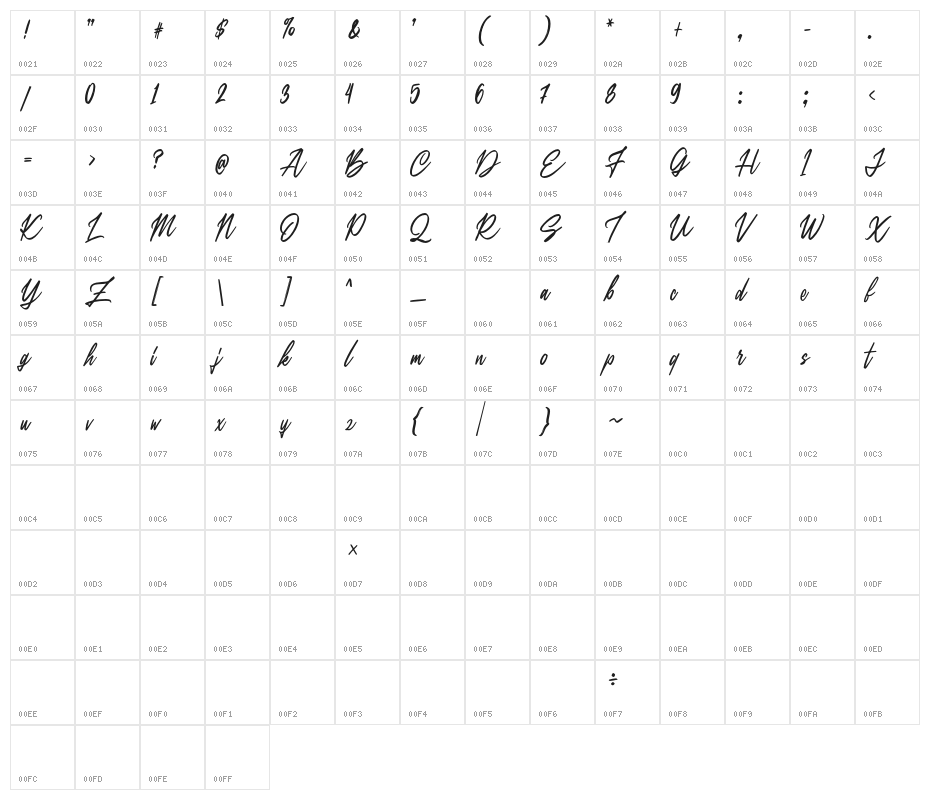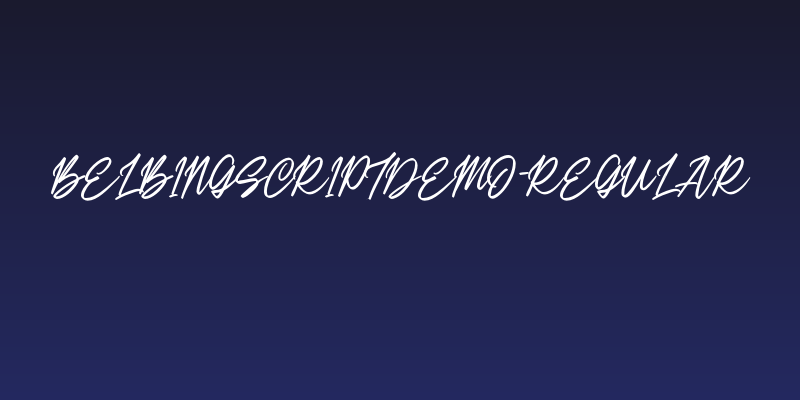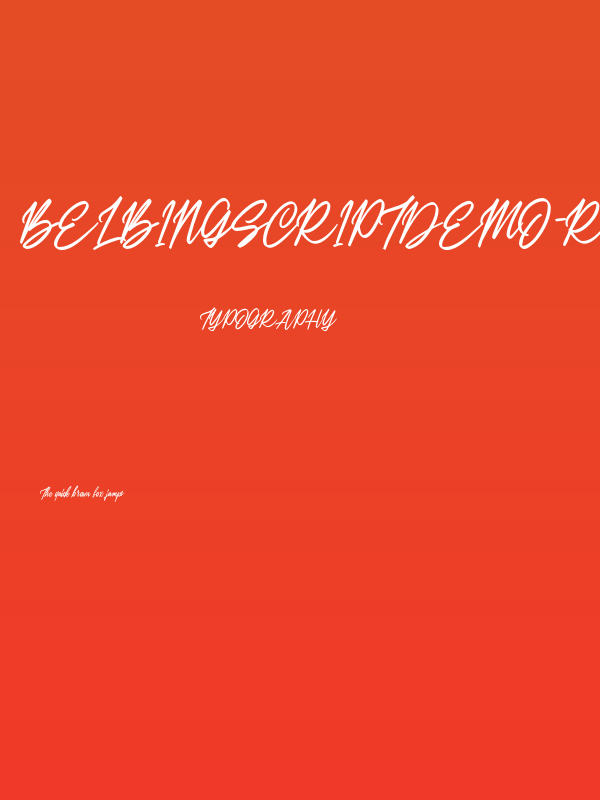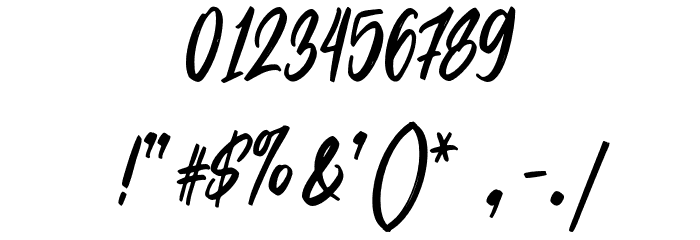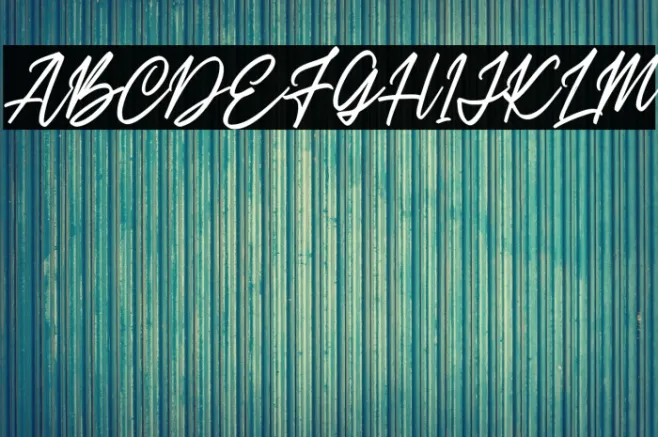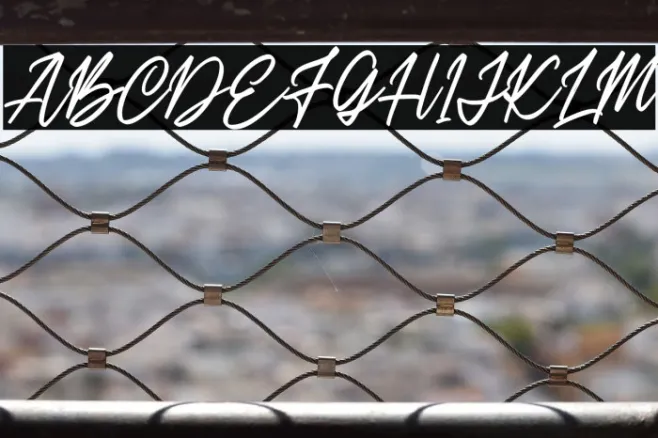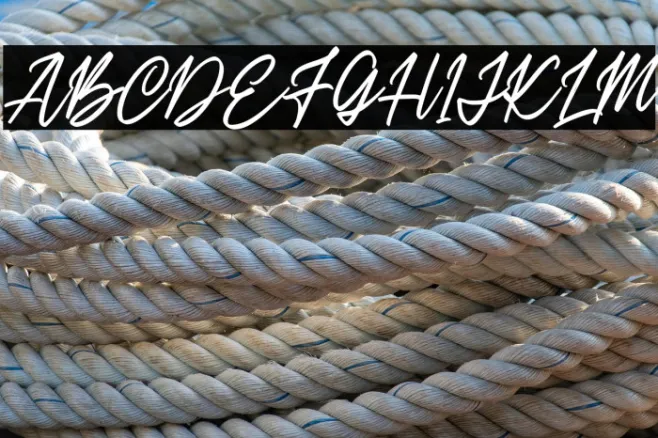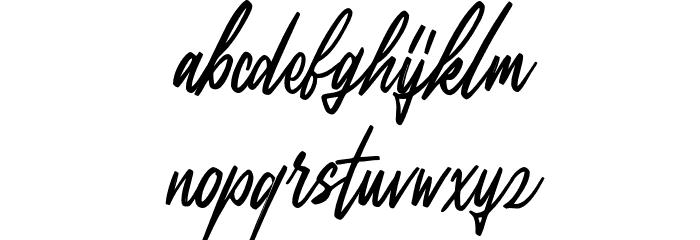
BelbingScriptDEMO-Regular Font
BelbingScriptDEMO-Regular Description
This font exudes a dynamic and elegant script style, characterized by its fluid, cursive strokes and a sense of motion. The uppercase letters are bold and sweeping, with a slight slant that adds to the overall sense of elegance and sophistication. The lowercase letters maintain a consistent flow, with smooth connections between characters, enhancing readability while preserving the script's artistic flair. Numbers and special characters are designed to complement the letterforms, maintaining the same fluidity and style. This font is perfect for projects that require a touch of elegance and personal expression.